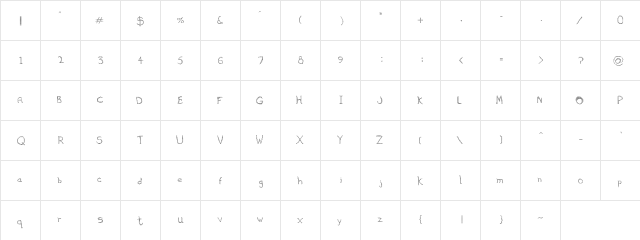
Crewch Regular
| Designer | YCFC19 |
Design Context for Crewch Typeface
Crewch is a composed and adaptable typeface that performs quietly and consistently across a wide range of design contexts.